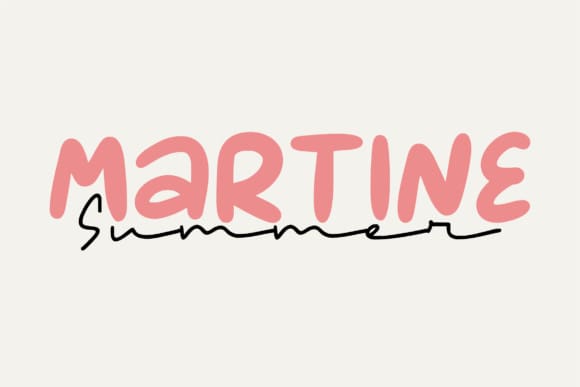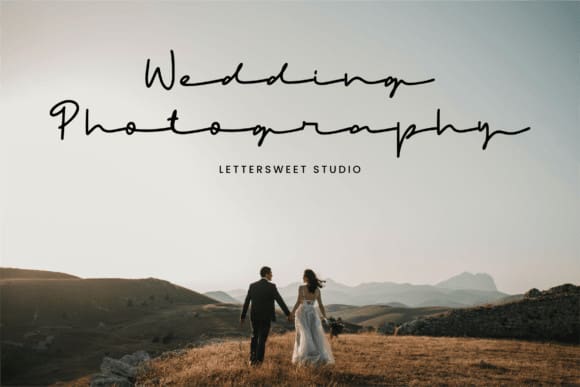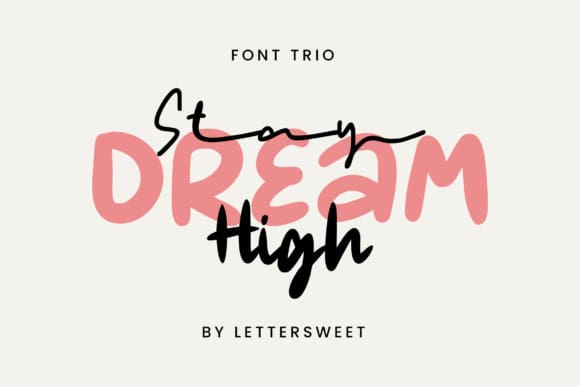
Stay Dream High Font
Stay Dream High Font is a collection of fonts with 3 styles. First, sans serif fonts with cute and bold shapes. Both fonts are hand-scribbled. And the third is a script font with a signature style. With different styles, you can combine the StayDream High font with any design.